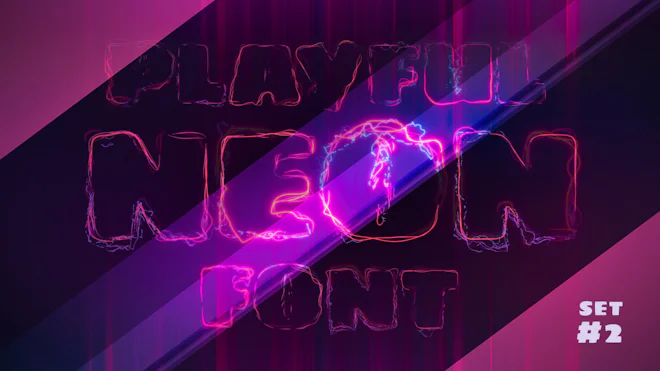
Pack 2/5 consists of Letters from K to T.
Variably paced multicolor neon curves, electric arcs and bright lightnings form a loopable alphabet characters to be used for creating animated titles, words, signs and so on.
The whole pack consists of 53 characters and includes uppercase letters, numerals, currency signs, some special symbols and punctuation for bright and striking dynamic typography of your project.